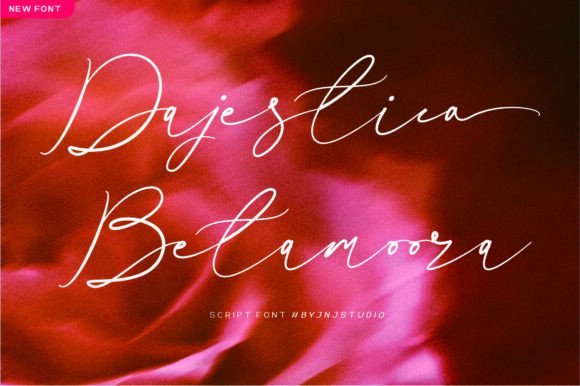
Unleashing the Beauty of Handwritten Elegance
Have you ever found yourself scribbling notes in a worn leather journal, the soft scratch of the pen dancing across the page as you pour your thoughts onto paper? It’s a moment of pure creativity, where the world outside melts away and all that’s left is the flow of ideas. This is the essence of Dajestica Betamoora Font, a beautiful typeface that captures the essence of refined handwriting.
Designed to evoke the charm of handwritten elegance, Dajestica Betamoora Font is perfect for branding, invitations, and editorial designs that require a touch of sophistication. With its smooth curves and delicate strokes, this font brings a sense of harmony and balance to any project, making it a valuable addition to any designer’s toolkit.
Dajestica Betamoora Font Key Features
- Font Family: Dajestica Betamoora is a unique and decorative font family, ideal for creative projects and designs that require a touch of elegance and sophistication.
- Unique Characteristics: The font family features intricate details, swashes, and flourishes, making it perfect for creating eye-catching headlines, titles, and other display text.
Dajestica Betamoora Font Review
I was excited to dive into the Dajestica Betamoora font, but my experience was a mixed bag. Here’s what worked well and what didn’t quite hit the mark.
- The Dajestica Betamoora font has a unique, hand-drawn feel that adds a touch of personality to any project. It’s perfect for designers looking to create something quirky and eye-catching.
- The font is highly customizable, with a wide range of weights and styles to choose from. This makes it easy to adapt to different design needs.
- The font’s irregularities and imperfections give it a charming, human touch that sets it apart from more polished fonts.
- The font’s irregularities, while charming, can also make it difficult to read at small font sizes. This may be a concern for designers working on projects with limited space.
- The font’s unique feel can be overwhelming in large quantities. It’s best used in moderation to avoid visual fatigue.
Overall, I think the Dajestica Betamoora font is a great addition to any designer’s toolkit. While it may not be suitable for every project, it’s perfect for those looking to add a touch of whimsy and personality to their designs. With its unique feel and high level of customization, it’s definitely worth exploring.
Tips for Getting the Most Out of Dajestica Betamoora
Use Dajestica Betamoora for creating unique and eye-catching headlines and titles.
Pair Dajestica Betamoora with a clean and simple font for body text.
Dajestica Betamoora is ideal for:
Creating attention-grabbing headlines and titles.
Designing creative and unique marketing materials.
Adding a touch of personality to your brand’s visual identity.